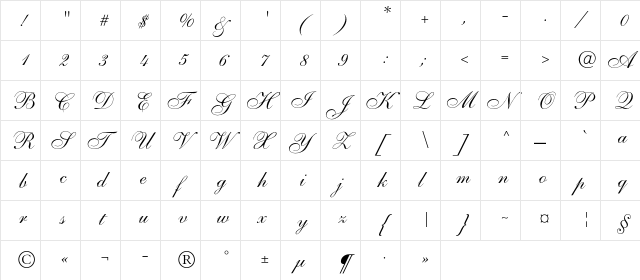
AnastasiaScriptC Regular
Design Context for AnastasiaScriptC Typeface
AnastasiaScriptC flows with the natural rhythm of handwritten lettering, making it ideal for designs that call for warmth and personal expression.
Font Pairing: Combine AnastasiaScriptC with a simple geometric sans for maximum contrast — the tension between flowing curves and clean structure is a classic typographic pairing.
Pro Tip: Pair AnastasiaScriptC with a clean sans-serif for supporting text. The contrast between fluid script and geometric structure creates an elegant typographic hierarchy.